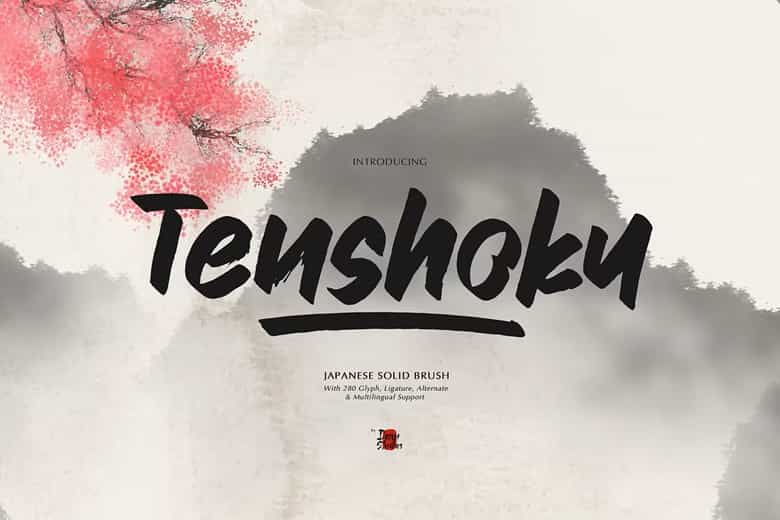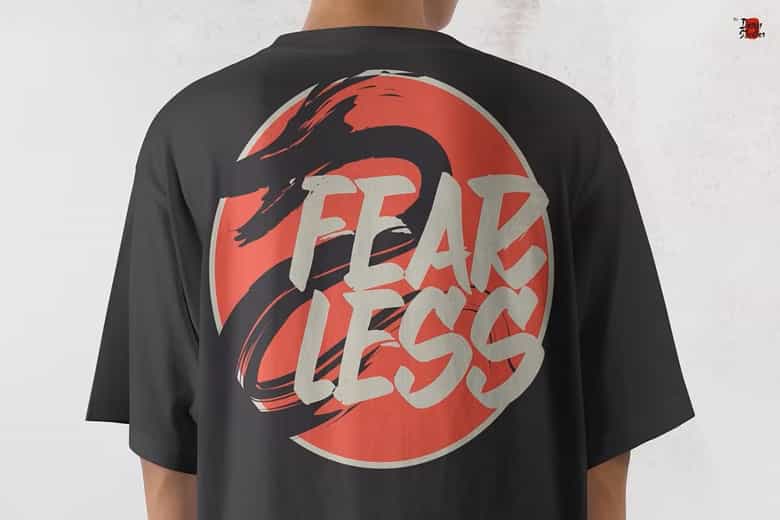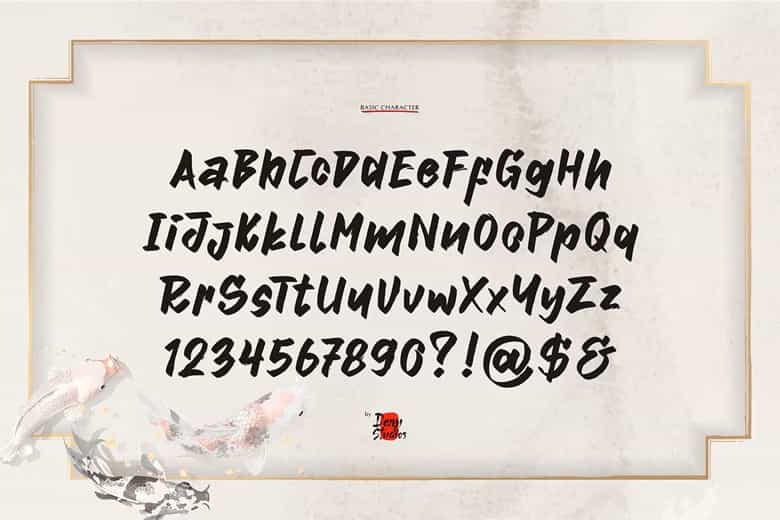
Tenshoku is a playful and lively brush font with the spirit of Japanese brush art, applied to contemporary projects. It is perfectly versatile in financing a variety of creative projects and brings a handcrafted feeling to their application. Whether it is logos, brand and product packaging, homewares, mugs, quotes, posters, shopping bags, t-shirts, book covers, business cards, invitations, greeting cards, labelling, special event materials, or other creations, with the Japanese brush and effect of stipple, that produce a dynamic visual and a unique Japanese aesthetic.